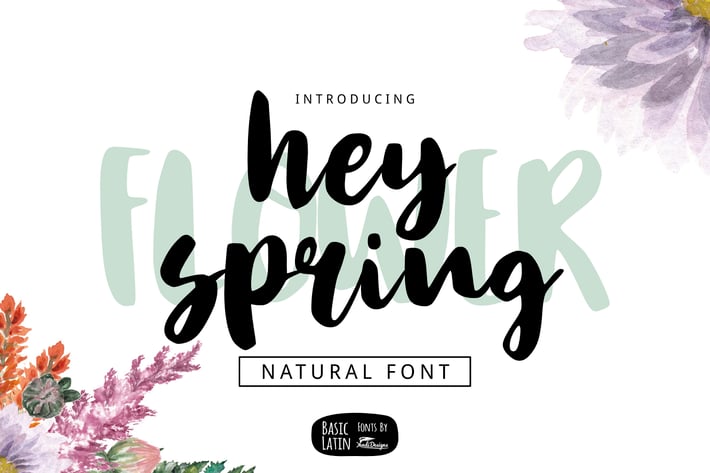
Hey Spring Brush Font
Simple fresh multipurpose brush font , suitable for many project children book, quotes, logo , heading , title etc.
Basic Latin (Standard English character , number, symbol)